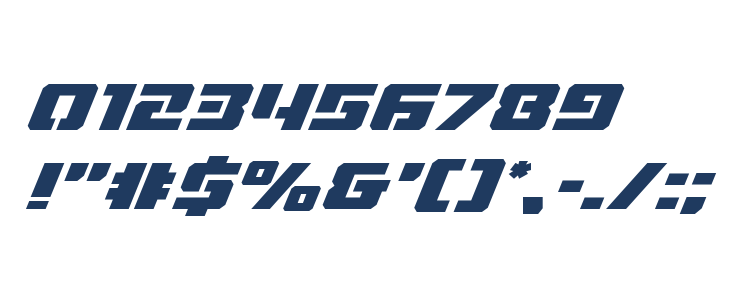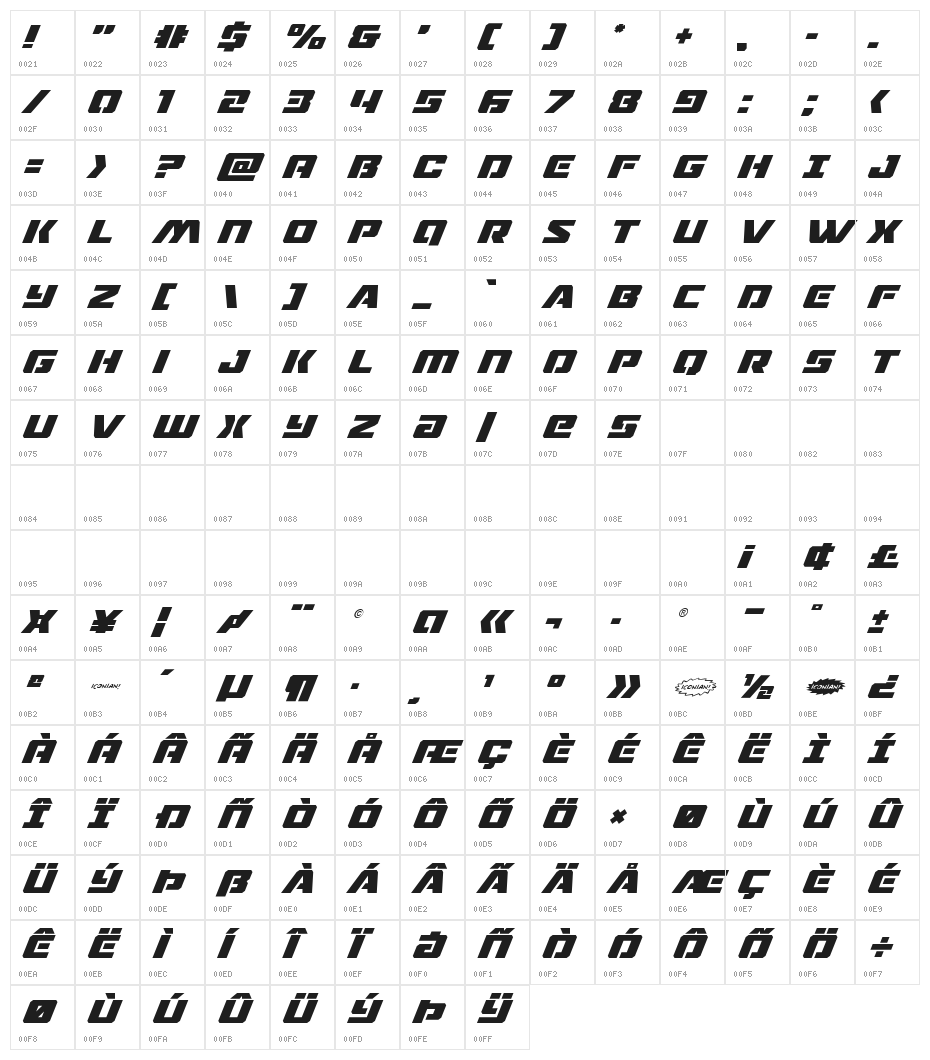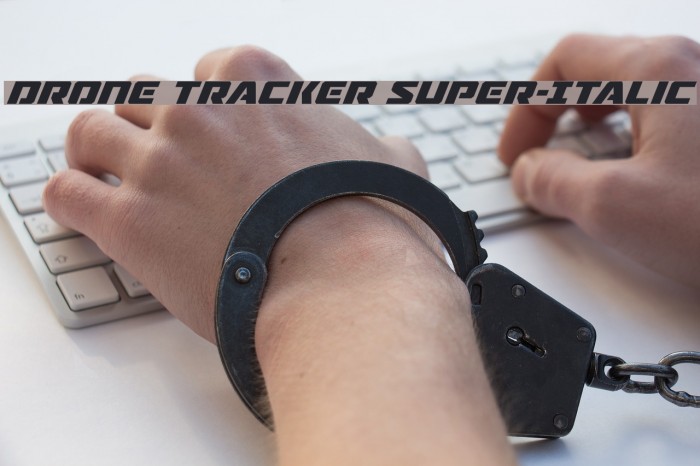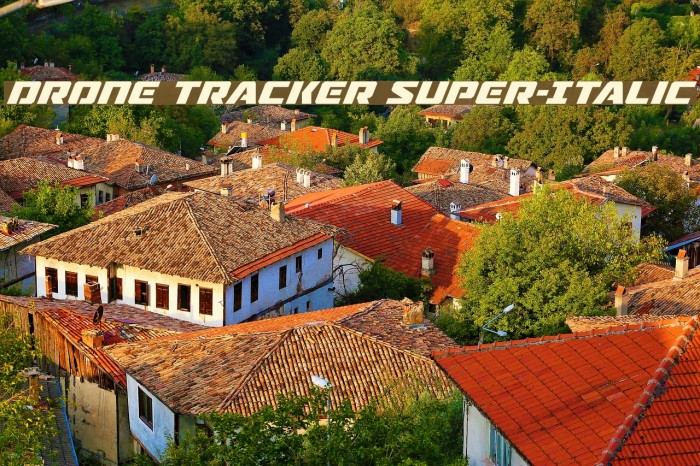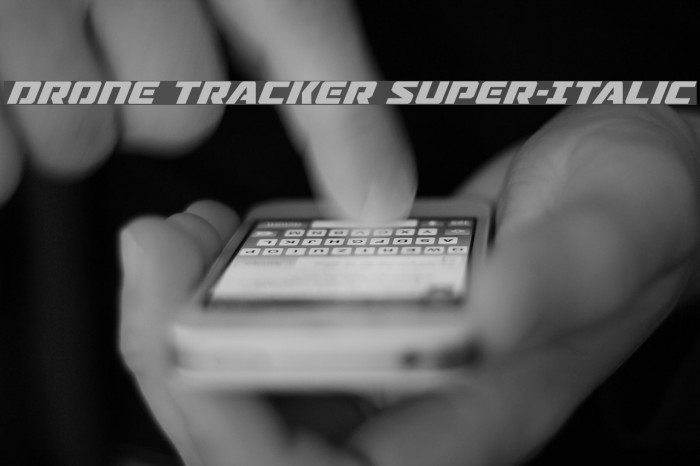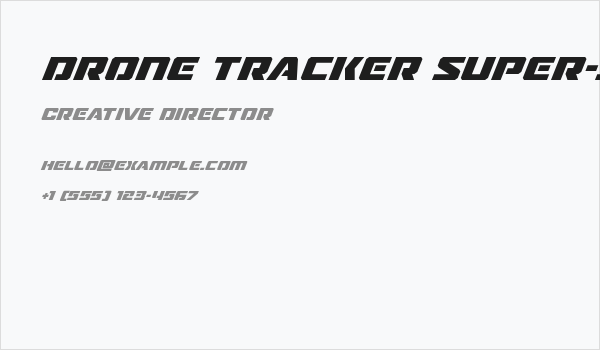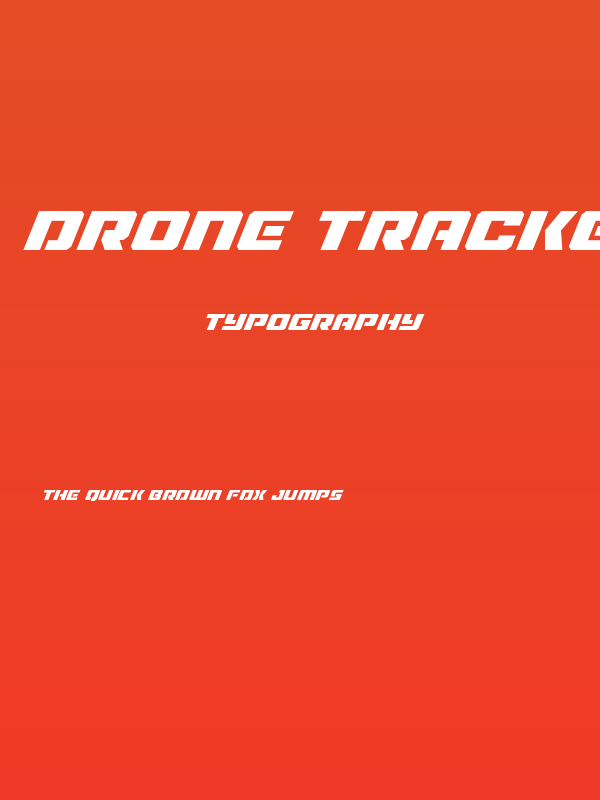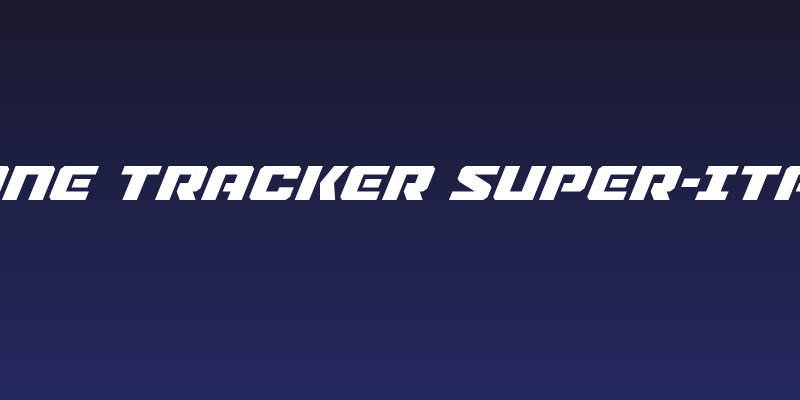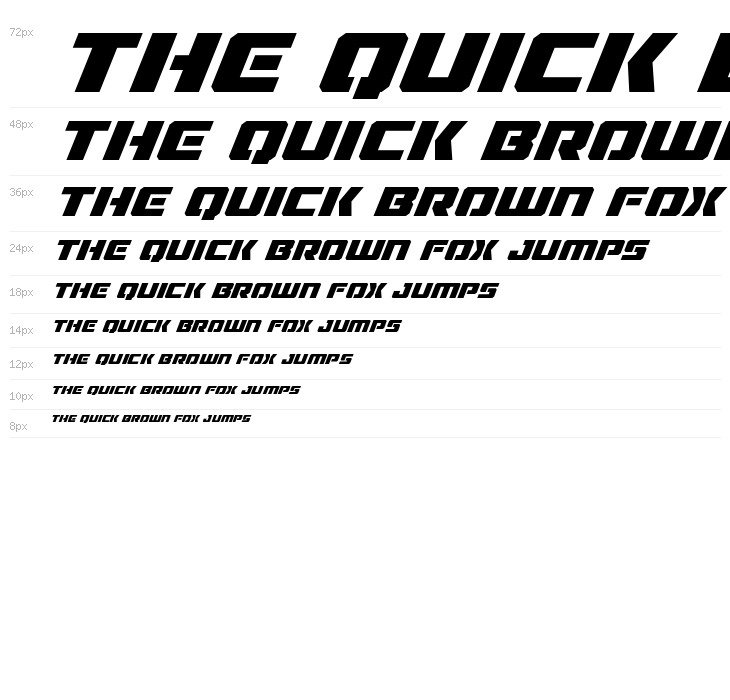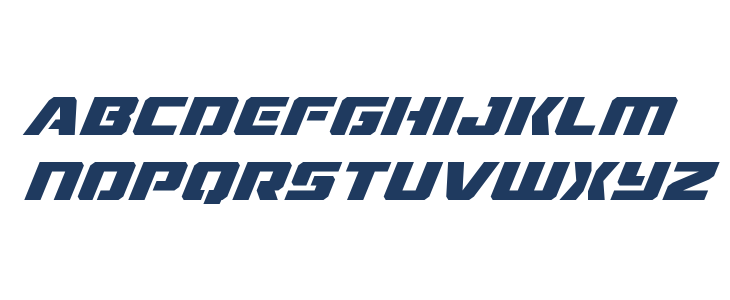
Drone Tracker Super-Italic Font
Drone Tracker Super-Italic Description
This font features a bold, italicized style with a futuristic and dynamic appearance. The characters are angular and slanted, giving a sense of motion and speed. The uppercase and lowercase letters maintain a consistent style, with sharp edges and a geometric structure. The numbers and special characters follow the same design principles, ensuring uniformity across the entire set. The font's boldness and slant make it particularly eye-catching and suitable for projects that require a modern and energetic look.
| Proposed Projects | Ideal for technology branding, sports team logos, video game titles, and sci-fi themed designs. |